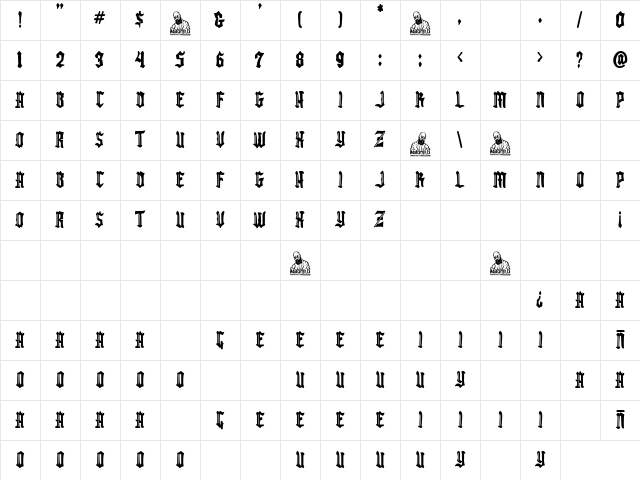
The Lord of Steel Regular
Designer: Woodcutter Manero
Design Context for The Lord of Steel
The Lord of Steel is a composed and adaptable typeface that performs quietly and consistently across a wide range of design contexts.